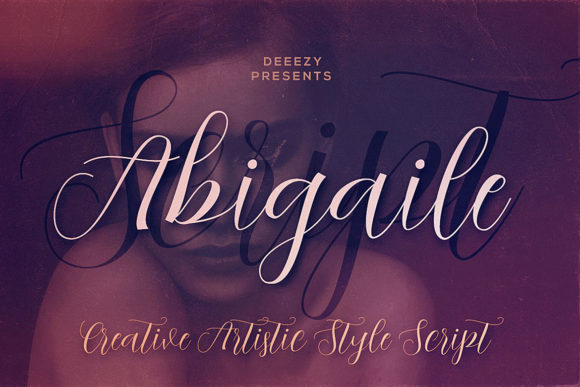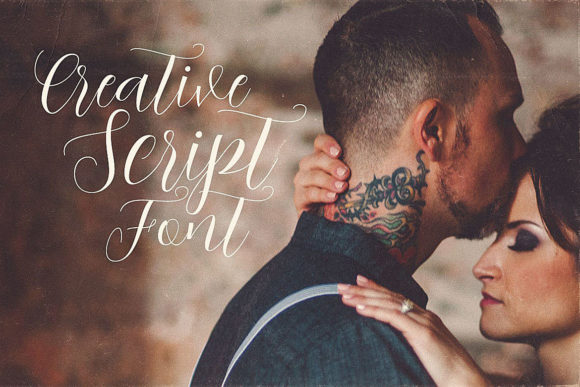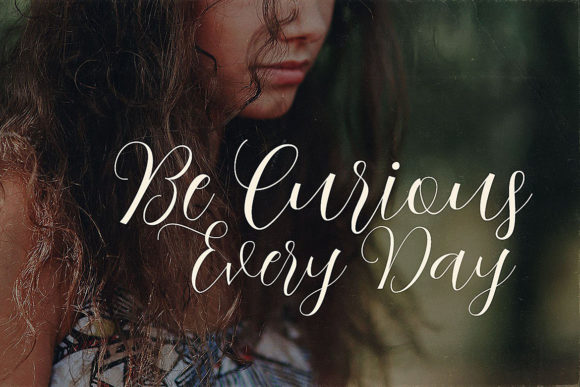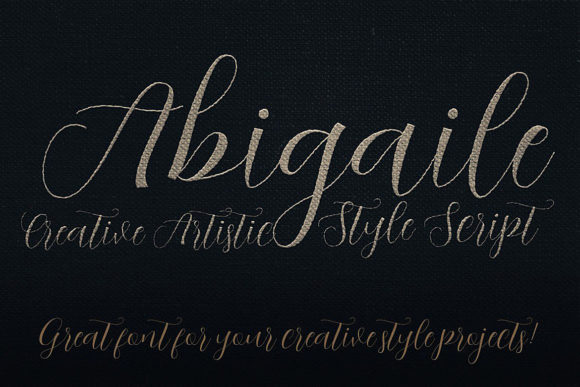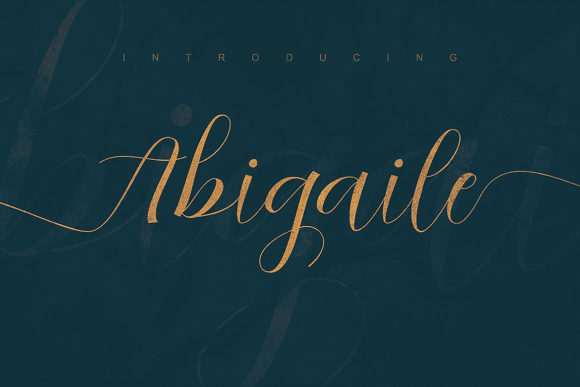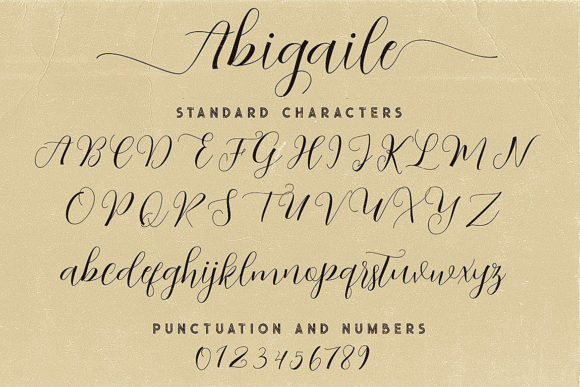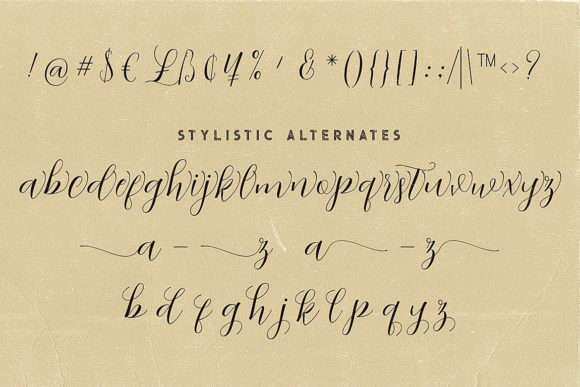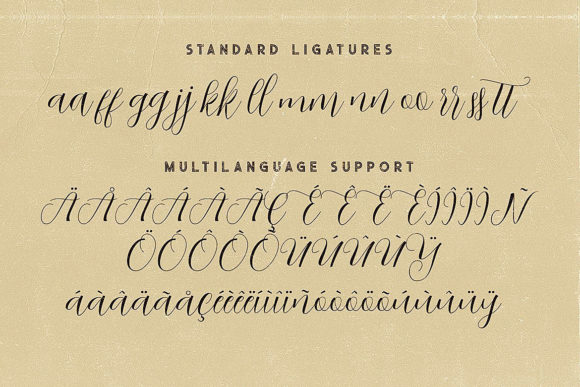
Abigaile Script Font
About Abigaile Script Font
The Abigaile is a handwritten script font. It has thin lines and an amazing dancing baseline which can be used to add an elegant touch to your designs.